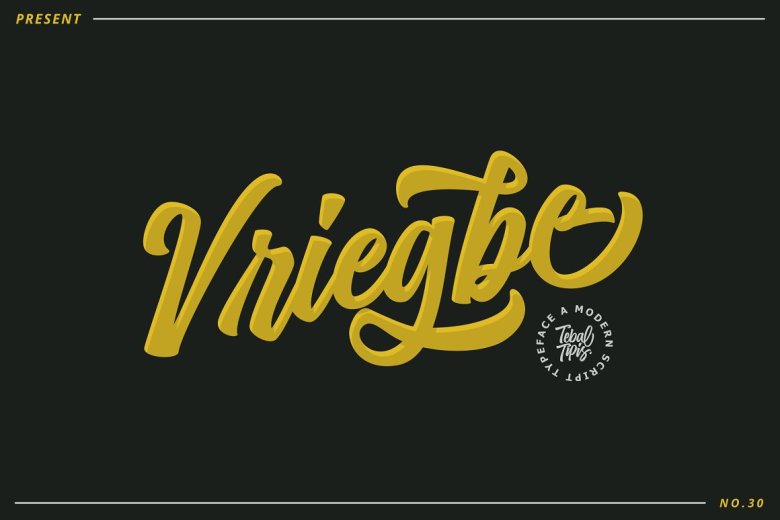
Vriegbe Font
Yesterday I released Latest new product Vriegbe Script, a typeface with personality in every single glyph. You can use it as a logo, badge, insignia, packaging, headline, poster, and all print design, as well as body text. The alternative character in this typeface were divided into several open type features such as Stylistic Alternates, Stylistic set, and Ligature.
Vriegbe Script Font